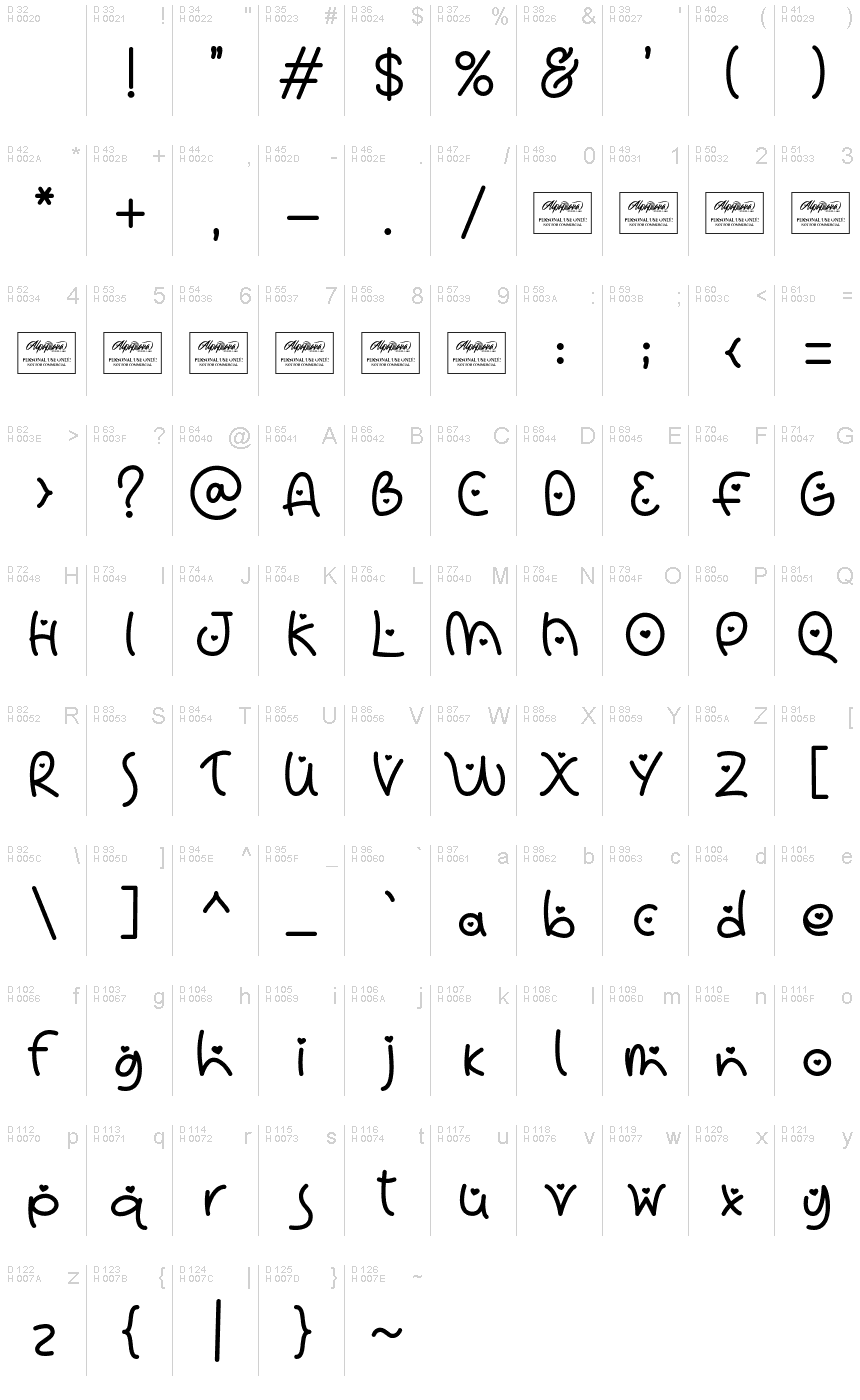
Presents
Introducing Presents, a light-weight Valentine-style font designed by Alpaprana Studio. Its perfect for creating romantic cards, gifts and decorations for special occasions. Make your projects stand out with Presents!